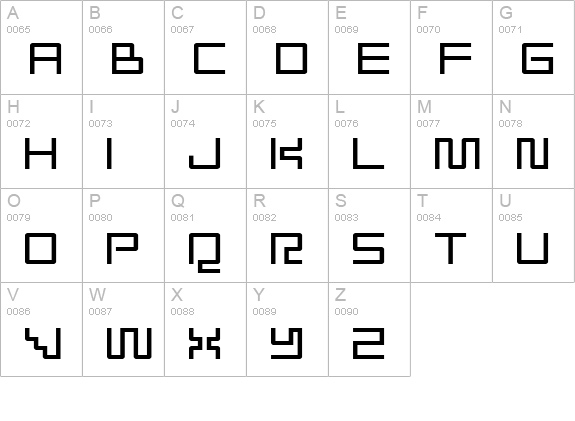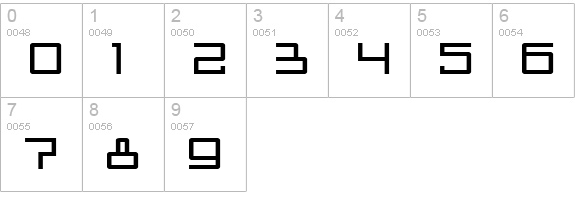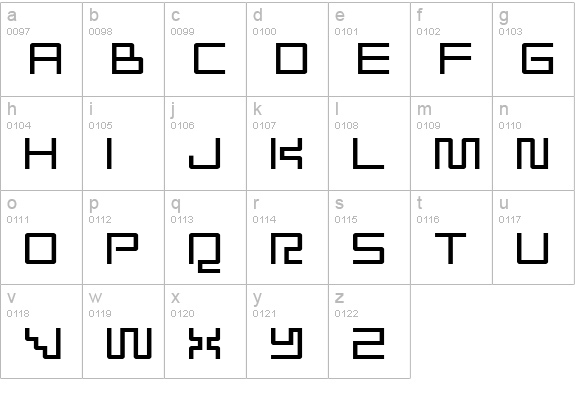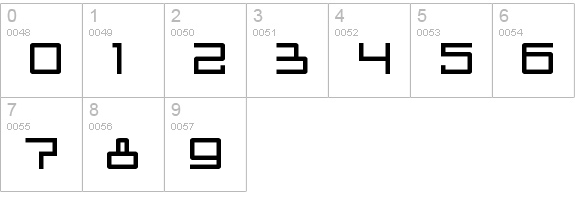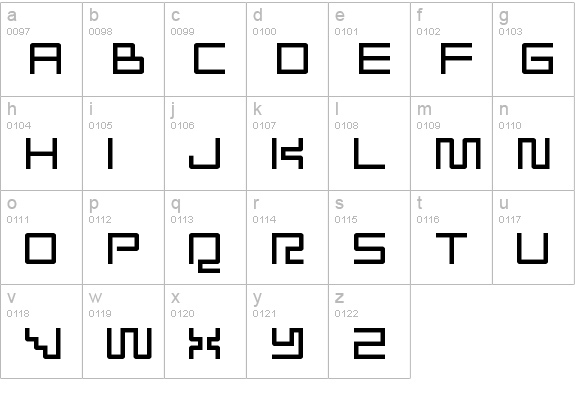
Radioaktivitet Font Details
Radioaktivitet is a striking and captivating font that embodies the essence of energy and dynamism. Its bold and edgy design captures the attention of the viewer, making it perfect for eye-catching headlines, logos, and branding materials. This unique font is inspired by the concept of radioactivity, with its sharp lines and electrifying presence. One of the most remarkable aspects of Radioaktivitet is that it is freely available to download at FontsMarket.com. This means that designers and creatives can easily access this incredible font without any cost, making it a valuable asset for any project. With its versatility and exceptional design, Radioaktivitet is sure to make a powerful impact on any visual composition. Whether you are creating a modern advertisement, a futuristic poster, or a cutting-edge website, Radioaktivitet will add a dose of energy and excitement to your design. Its distinct and bold characters will make your message stand out and leave a lasting impression on your audience. With Radioaktivitet, you have the freedom to explore endless possibilities and experiment with various layouts and designs. Its sleek and contemporary aesthetic makes it an ideal choice for projects that require a touch of modernity and innovation. So, why wait? Download Radioaktivitet today from FontsMarket.com and elevate your designs to a whole new level. With its free availability, this font is a must-have for any designer looking to make a bold statement and create visually stunning compositions. Let Radioaktivitet unleash your creativity and bring your ideas to life with its electrifying presence.